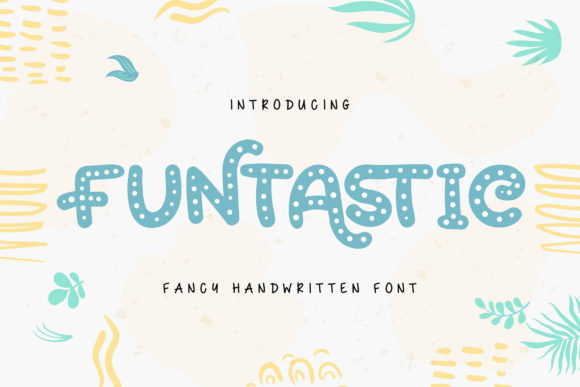
Prepare yourself to enter a realm of typographic enchantment with Funtastic Font, a whimsical and captivating display font that will cast a spell on your designs. This enchanting font family, hailing from the creative mind of Vunira, is meticulously designed to transport your visual creations into a world of pure imagination.
Funtastic Font captivates with its unique and amicable personality, adding a touch of magic to every letter and word it graces. Its enchanting curves and playful strokes evoke a sense of wonder, drawing the eyes of readers and inviting them to embark on a typographic adventure.
Whether you're weaving tales of fantasy, crafting whimsical invitations, or creating eye-catching logos, Funtastic Font is your trusty companion, ready to add a sprinkle of enchantment to your design endeavors. Its versatility knows no bounds, making it the perfect choice for an array of projects, from personal blogs to enchanting branding materials.
For those seeking to add a spark of magic to their creative endeavors, Funtastic Font stands as a beacon of inspiration. Its captivating nature will cast a spell on your designs, leaving a lasting impression that lingers in the minds of your audience. As you weave your words and visuals together, Funtastic Font will dance across the page, casting its magical aura upon every project you undertake.
So, let your imagination soar and allow Funtastic Font to be your guide through a typographic wonderland. Dive into its enchanting world, where creativity and wonder collide, and watch as your designs blossom into masterpieces that captivate and inspire. Embrace the magic of Funtastic Font and let your creations speak volumes, leaving a trail of enchantment wherever they go.